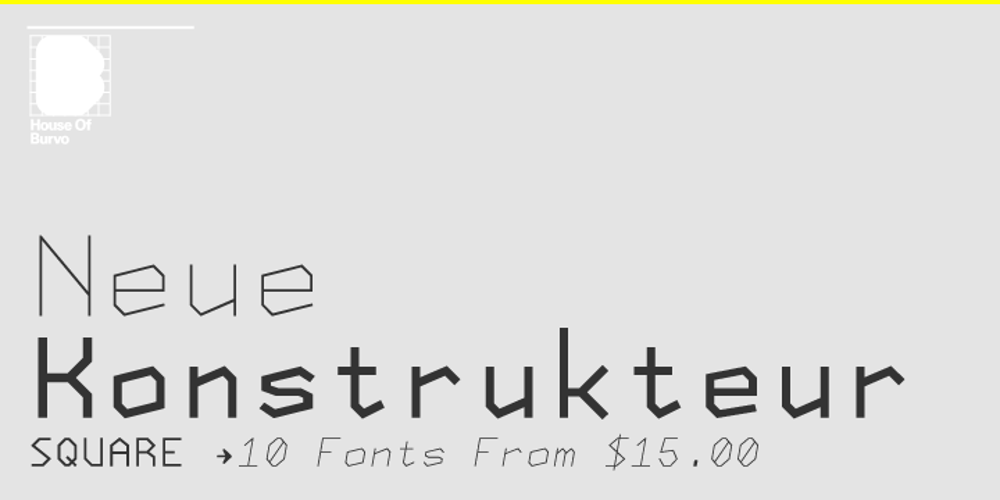
Neue Konstrukteur Square
Neue Konstrukteur Square font
Neue Konstrukteur Square Font Family was designed by published by HouseOfBurvo. Neue Konstrukteur Square contains 10 styles and family package options. Neue Konstrukteur Square is an engineered, mechanical typewriter font with a hint of heritage blackletter. Inspired by a trip to Germany this font has five weights from Thin to Black with accompanying italics. That makes 10 font files in total, enough for the most demanding projects. Also check out its sister font Neue Konstrukteur Round.